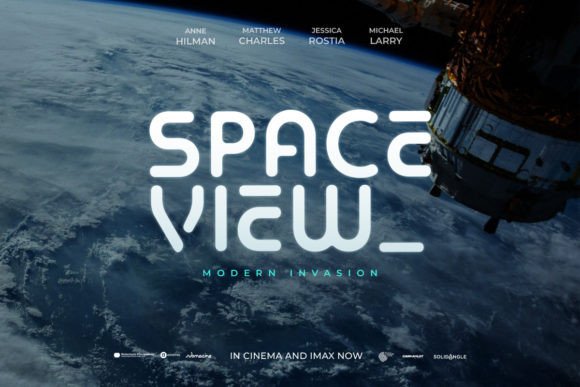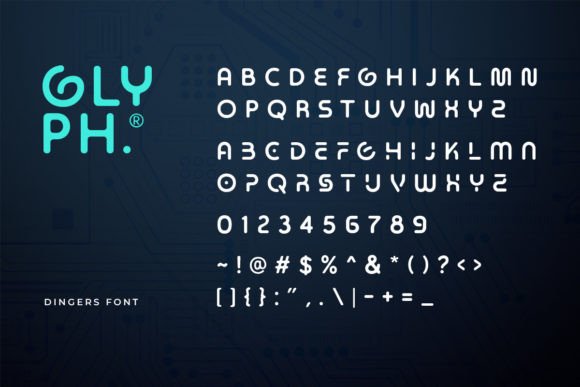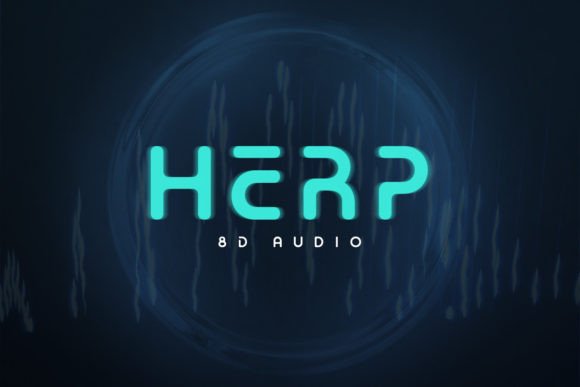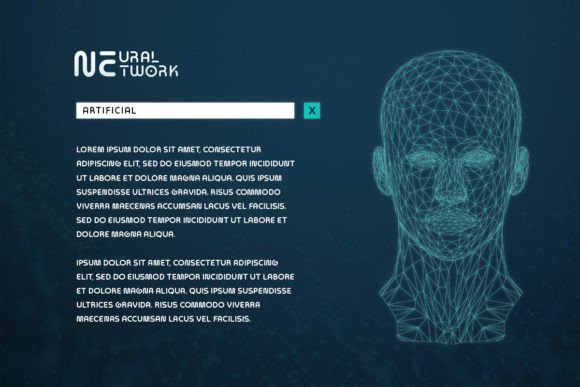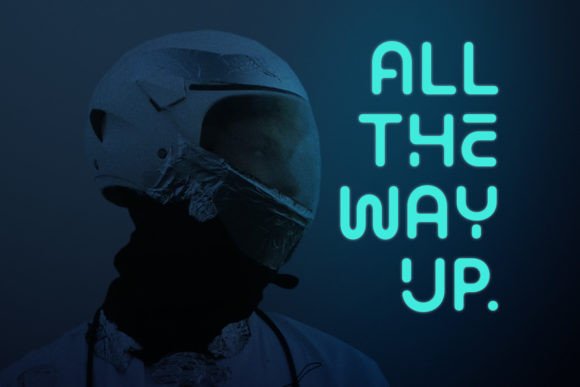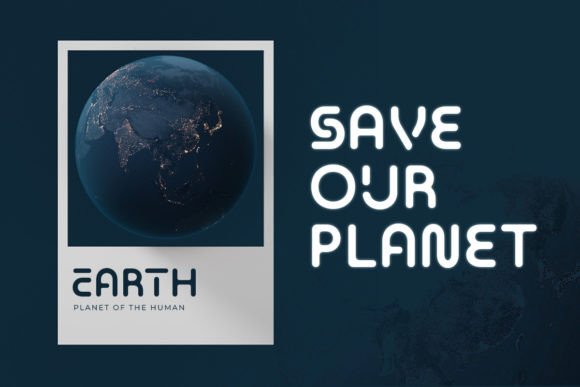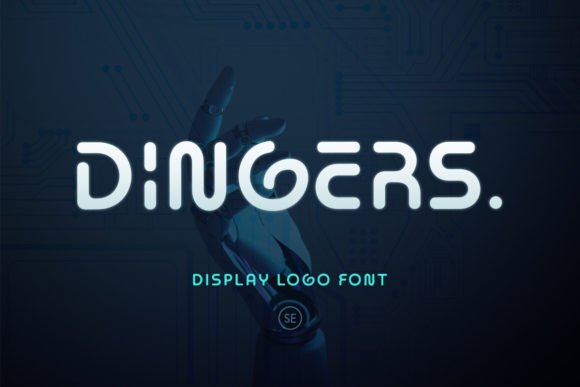
Dingers Font: Elevate Your Designs with a Futuristic Twist
In the realm of typography, fonts play a pivotal role in defining the aesthetic and tone of a design. For designers and crafters seeking to infuse their projects with a modern, hi-tech edge, Dingers Font emerges as an exceptional choice. This sans-serif typeface, characterized by its fancy rounded shapes, is not only visually appealing but also incredibly versatile. In this article, we’ll delve into the features of Dingers Font, explore its potential applications, and discuss how it can elevate your designs to new heights.
The Distinctive Features of Dingers Font
Dingers Font is distinguished by its clean, sans-serif design combined with rounded edges, giving it a soft yet futuristic appearance. This unique blend makes it stand out in the world of typography. The font’s rounded shapes contribute to its friendly and approachable feel, making it suitable for a wide range of projects, from digital interfaces to print materials.
Versatility at Its Core
One of the key advantages of Dingers Font is its versatility. Its design allows it to be used across various platforms and for multiple purposes. Whether you’re creating a logotype that needs to make a bold statement, designing sci-fi movie posters that demand a futuristic vibe, or crafting a brand identity that stands out, Dingers Font is up to the task. Its adaptability ensures that it can seamlessly integrate into your project, enhancing its overall look and feel.
Creative Uses of Dingers Font
The creative possibilities with Dingers Font are vast. Here are a few ideas to get you started:
- Logotypes: The unique design of Dingers Font makes it an excellent choice for logotypes. Its rounded shapes and clean lines ensure that your logo is not only memorable but also conveys a sense of innovation and forward-thinking.
- Sci-Fi Movie Posters: For movie posters, especially those in the sci-fi genre, Dingers Font can add a significant futuristic element. Its hi-tech appearance can help set the tone for the movie, making it more appealing to potential viewers.
- Branding: When it comes to branding, establishing a strong visual identity is crucial. Dingers Font can play a pivotal role in this, offering a distinctive look that can set your brand apart from competitors.
Tips for Maximizing Impact
To truly leverage the potential of Dingers Font, consider the following tips:
- Mix and Match: Don’t be afraid to mix uppercase and lowercase letters. This approach can add dynamism to your text, making it more visually appealing.
- Experiment with Colors: The right color scheme can further enhance the impact of Dingers Font. Experiment with different colors to find the one that best suits your design.
- Pair with Complementary Fonts: For projects that require additional typography, consider pairing Dingers Font with complementary fonts. This can add depth and interest to your design.
Dingers Font is more than just a typeface; it’s a design tool that can transform your projects with its futuristic and trendy aesthetic. Its versatility, combined with its distinctive features, makes it an excellent choice for designers and crafters looking to make a statement. Whether you’re working on a logotype, a sci-fi movie poster, or a brand identity, Dingers Font offers the potential to elevate your design and make it stand out in a crowded creative landscape.
Embrace Dingers Font in your next project and experience firsthand how this sans-serif typeface with a fancy rounded shape can bring a hi-tech and trendy vibe to your designs.